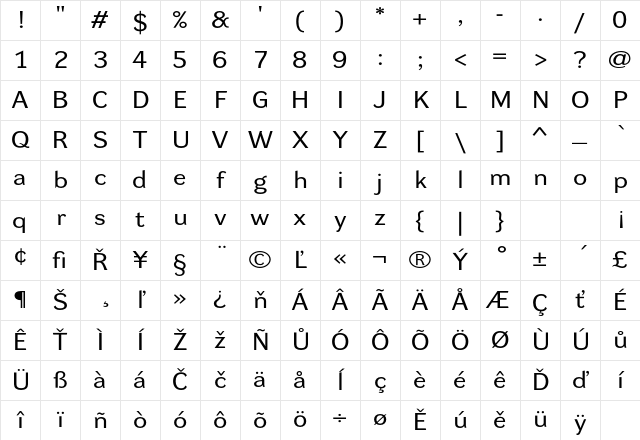
Dynamo RXE Regular
Dynamo RXE Family
Dynamo RXE Regular
Design Context for Dynamo RXE
Dynamo RXE is a composed and adaptable typeface that performs quietly and consistently across a wide range of design contexts.